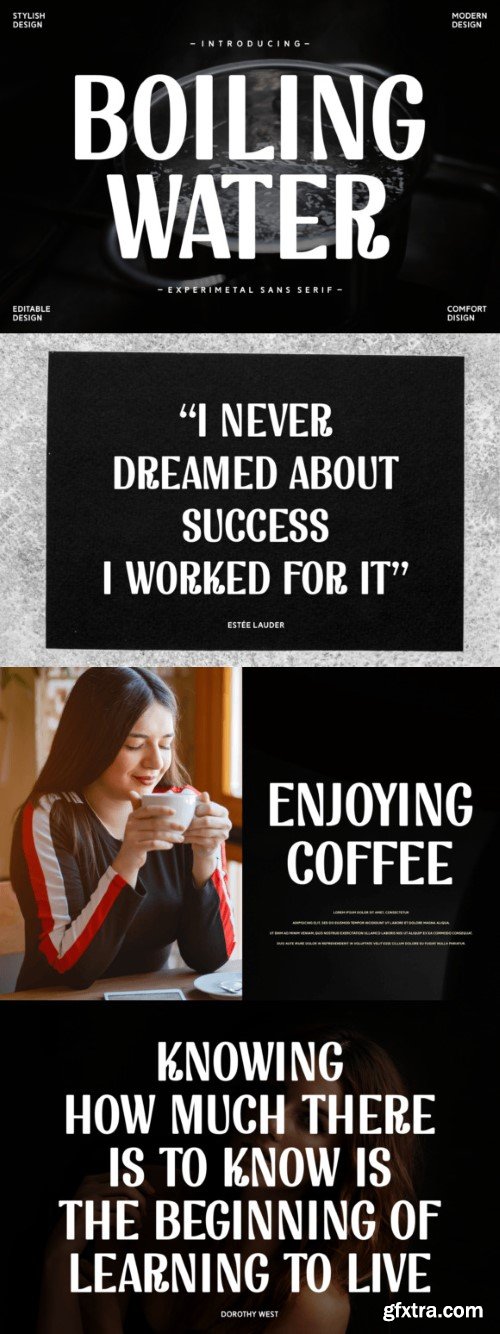
Boiling Water is a bold, modern sans-serif font with smooth curves and sharp edges, evoking energy and precision. Its clean lines and contemporary style make it perfect for branding, headlines, and digital design, offering versatility and impact for creative projects and bold statements.